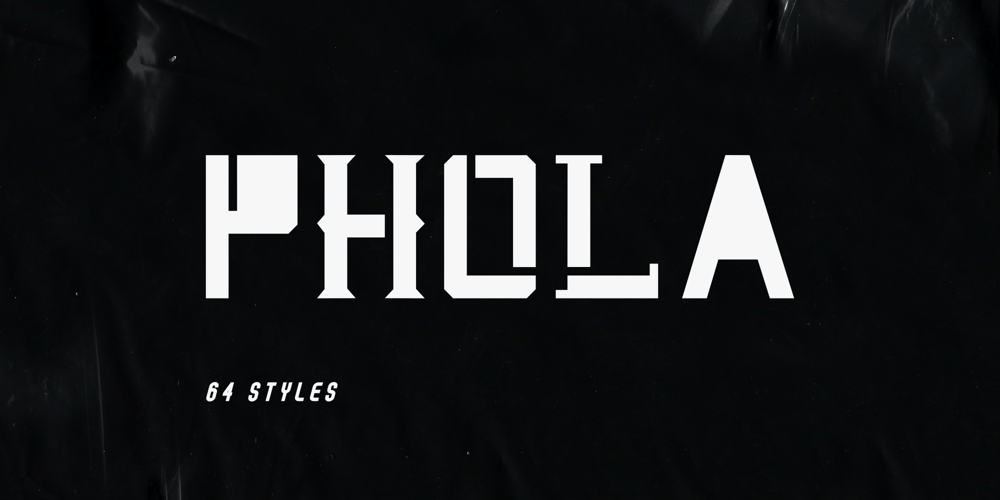
Phola
Phola font
Phola Font Family was designed by Glen Nyundu and published by RainBomb Studio. Phola contains 48 styles and family package options. Phola is a brand new geometric san-serif display type family. It consists of 64 fonts and includes an extensive character set and multilingual support. Crafted with love this font family offers a numerous styles (Regular, Solid, Square, Diablo, Oblique, Outline, Clean) the family allows for extensive use cases. This OpenType font offer a fantastic options for users to create some unique artwork. Perfect for branding, Logos, web design, headers, titles, displays, posters and other related projects.Family is mostly rectangular in shaped with either sharp or diagonal corners.